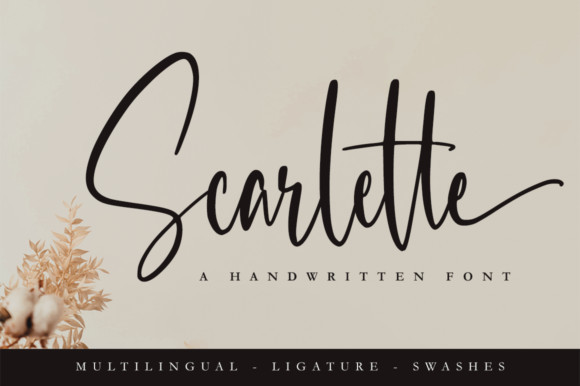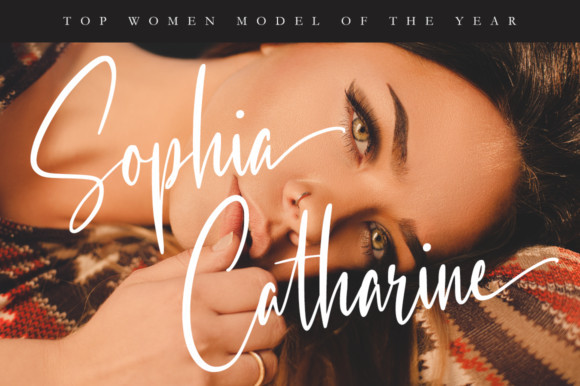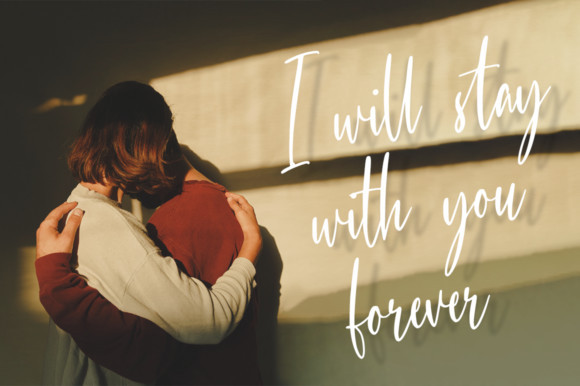
Scarlette Font
Scarlette is a ravishing, graceful and cursive handwritten font. It has beautiful and well balanced characters and as a result, it matches a wide pool of romantic designs. Add it confidently to your projects, and you will love the results.